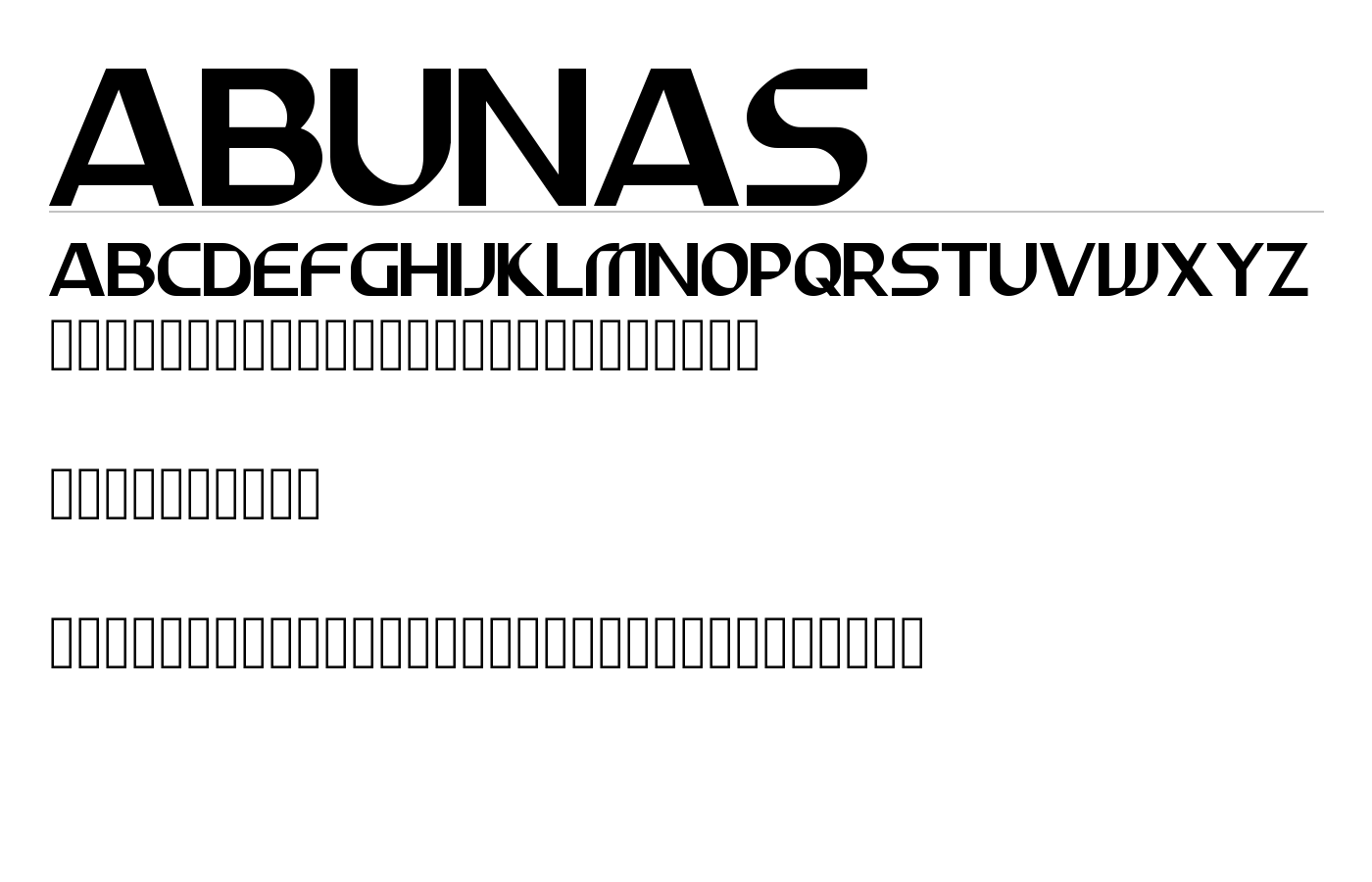
ABUNAS is a bold, geometric sans serif font with a modern and futuristic feel, characterized by its sharp angles and unique design details like the split leg of the 'R' and the stylized 'S'. It presents a strong, confident appearance with a condensed width and high x-height, making it excellent for striking headlines, logos, and branding that demand a contemporary, tech-savvy impression. This font works especially well in contexts where a clean but distinctive look is needed to convey innovation and strength.
ABUNAS Font